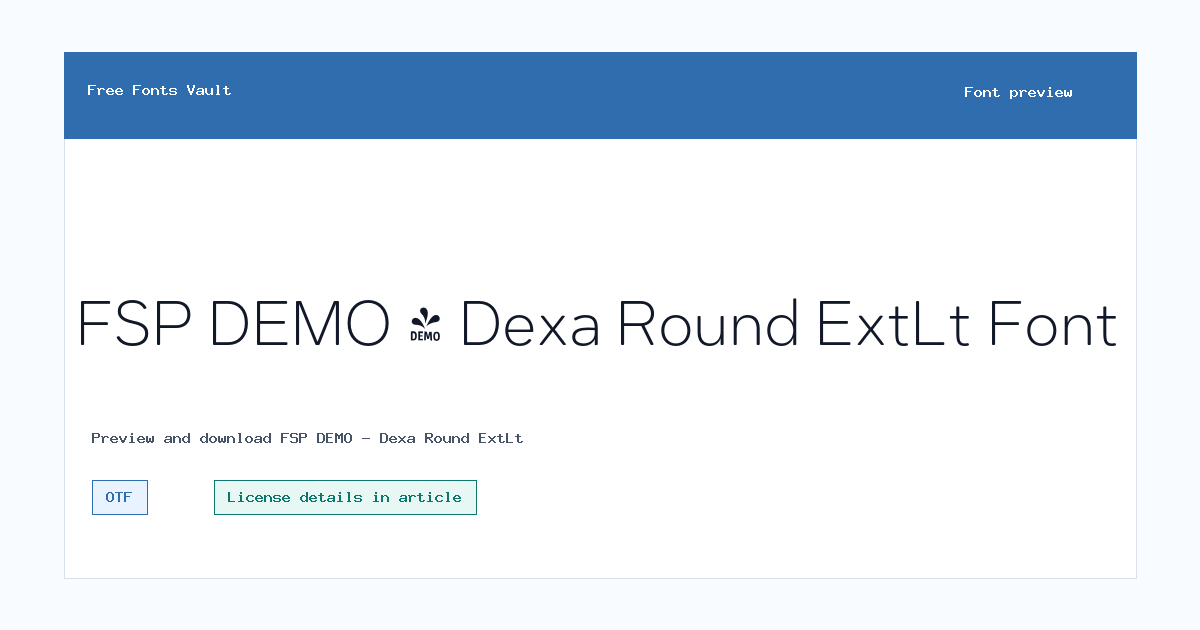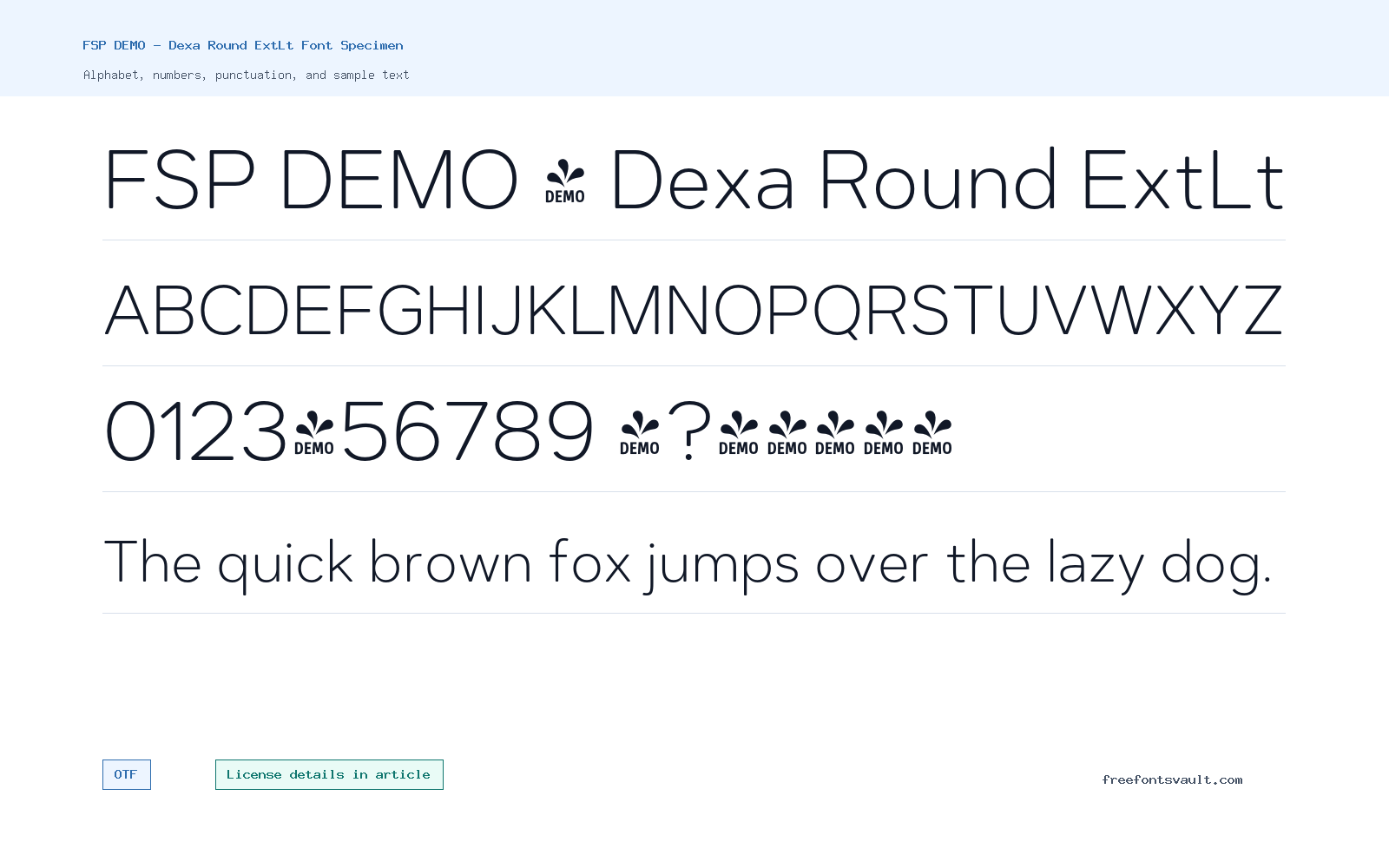
FSP DEMO - Dexa Round ExtLt
- Designer Ceyhun Birinci
- Foundry Artegra
FSP DEMO – Dexa Round ExtLt font.
FSP DEMO – Dexa Round ExtLt is a very light rounded display font for clean headings, soft interface labels, presentation covers, and modern brand mockups.
About FSP DEMO – Dexa Round ExtLt
Dexa Round ExtLt has the quiet, airy look you expect from a 200 weight rounded sans. The strokes are thin, the style is upright, and the rounded construction gives short words a softer personality than a sharp geometric sans. It works best when the layout gives the letters enough space to breathe.
Use it for display settings where restraint matters: simple title cards, product labels, minimal posters, hero graphics, UI mockups, and editorial headings. It is not the best first choice for paragraphs, tiny menu text, or low-contrast backgrounds, because extra-light fonts can disappear when the size drops or the background gets busy.
- Extra-light 200 weight with a slim rounded sans-serif feel
- Clean upright style suited to short display text
- Works well with generous spacing and strong foreground/background contrast
- Best paired with a sturdier body font for longer copy
- Modern headings, hero text, and presentation covers
- Soft technology branding drafts, labels, and packaging mockups
- Website section titles, app interface mockups, and menu labels
- Social graphics where the text can stay large and uncluttered
- Design previews that need a light rounded sans before licensing a full family
Keep this font large, clean, and high contrast. Add letter spacing if words feel tight, avoid very small sizes, and pair it with a more readable sans serif for body copy, captions, or long descriptions. If you use it over a photo, place it on a calm area of the image or add a subtle overlay so the thin strokes do not break apart.
What style is FSP DEMO – Dexa Round ExtLt?
Is it good for body text?
It is better for short display text. The thin 200 weight can become difficult to read in long paragraphs or small sizes.
Who is credited for the font?
Ceyhun Birinci is credited as designer, with Artegra listed as the foundry.